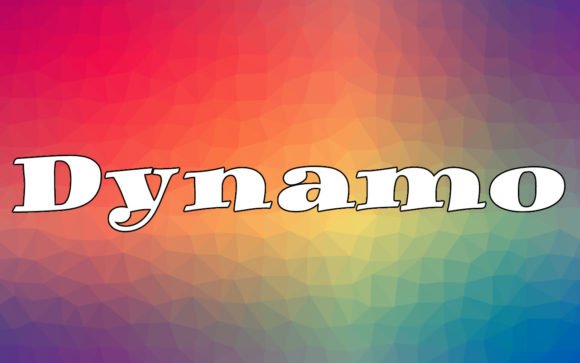
Dynamo - Futuristic Display Font for Tech & Gaming Graphics
Dynamo is a modern sans‑serif font designed with a bold and slightly condensed appearance, combining clarity with striking presence. Its clean lines and balanced proportions make it highly versatile — perfect for brand identities, posters, packaging, signage, and headline text where impact matters.
This typeface draws from mid‑century modern and geometric design sensibilities, giving your text a contemporary, polished appearance that works beautifully in both print and digital media. Whether for a minimalist brand, modern packaging, or striking social media graphics, Dynamo delivers refined simplicity with visual strength.
- Graphic designers crafting brand logos, labels or packaging
- Small‑business owners creating prints, signage, or product packaging
- Poster designers, social media creators, or digital‑graphics artists
- Etsy / POD shop sellers needing a clean, modern font for product titles or branding
- Crafters using cutting machines (Cricut, Silhouette) for signage, decals, or printed art
- Brand logos, wordmarks, and brand identity materials
- Posters, flyers, banners, signage and display graphics
- Product packaging, labels, packaging text
- Social media graphics, headers, digital ads, web banners (after webfont conversion)
- Business cards, letterheads, packaging inserts, tags
- Printable wall art or typographic designs with modern aesthetic
- Regular (single) weight — bold / display‑ready style
- Full Latin character set including letters, numbers, punctuation
- Clean, modern sans‑serif styling — great for contemporary branding and design
- Condensed yet bold — ideal for tight spaces without sacrificing impact
- Highly versatile — works across print, packaging, digital, signage, web conversion
- Gives a strong, professional vibe without being overly formal — suitable for modern or minimalist brands
Q: Is Dynamo good for long body text or paragraphs?
A: Not ideal — Dynamo’s bold, display‑ready character makes it better suited for headings, logos, packaging, posters or signage rather than long body copy. -
Q: Does Dynamo include multiple weights (light, bold, italic)?
A: No — this version of Dynamo typically includes a single regular/display weight only.
| Feature | Dynamo | Generic Sans‑Serif A | Generic Sans‑Serif B |
| Font Style | Bold, slightly condensed sans‑serif — modern & clean | Neutral sans‑serif — standard width, highly readable | Minimal sans‑serif — light/regular weight, simplified strokes |
| Best Use | Logos, headlines, packaging, posters, branding | Body text, general readability, long paragraphs | Web headings, light interface text, minimalist design |
| Weight & Spacing | Condensed and bold — powerful presence, saves space | Standard width — balanced spacing, easy readability | Light weight — airy, modern feel but less impact |
| Visual Vibe | Modern, confident, slightly retro‑geometric | Clean, neutral, utilitarian | Minimal, subtle, contemporary |